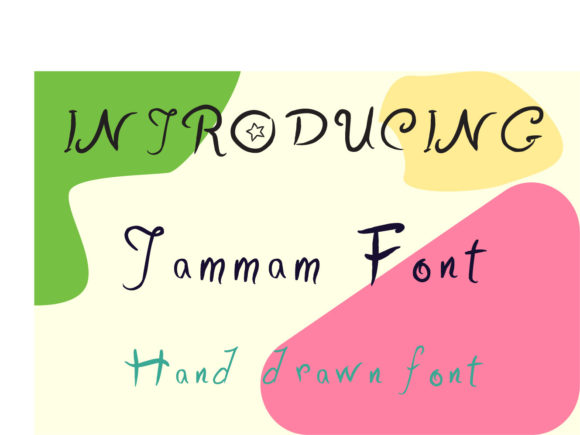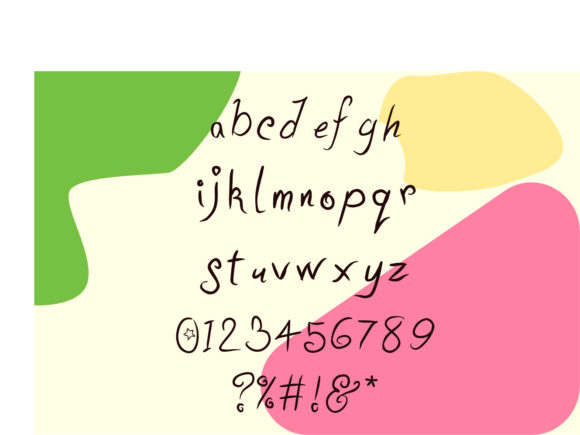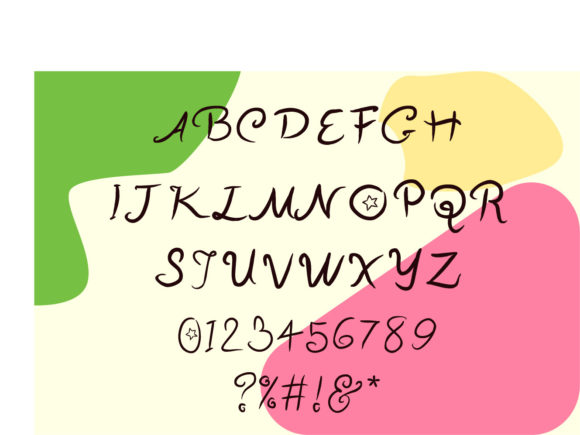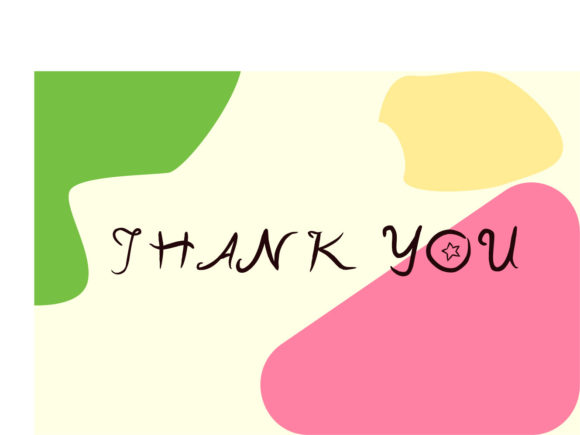
Tammam Font
About Tammam Font
Tammam is a lovely and delicate script font that captures the essence of elegance and class. With its graceful and flowing letterforms, this font adds a touch of sophistication and refinement to any design. It was carefully crafted to provide a beautiful and refreshing look, making it a perfect choice for those seeking to create visually stunning and memorable designs.
The intricate details and carefully balanced curves of Tammam create a harmonious and pleasing visual experience. Each letter is thoughtfully designed to maintain a sense of elegance and clarity, ensuring that every word you write or design using this font carries an air of sophistication.
Whether you are working on wedding invitations, branding materials, product packaging, or any other design project that requires a touch of elegance, Tammam is an excellent choice. Its delicate and refined nature makes it particularly well-suited for projects that aim to evoke a sense of beauty and luxury.
Tammam can bring your designs to life by adding a timeless and sophisticated touch. The flowing script and intricate flourishes make it a versatile font that can be used for various purposes, from logo designs and headline text to greeting cards and fashion-related projects. Its versatility allows it to adapt to different design styles and themes while still maintaining its inherent elegance.
This font is crafted with attention to detail, ensuring that each letter and glyph has a balanced and consistent look. Its flawless execution and refined aesthetic make it a reliable and captivating choice for any design project that calls for elegance and sophistication.
Incorporate Tammam into your designs and witness how it effortlessly elevates your creations. With its graceful and delicate nature, it brings a touch of timeless beauty and elegance to your typography. Let Tammam be the font that enhances your designs and leaves a lasting impression on your audience.